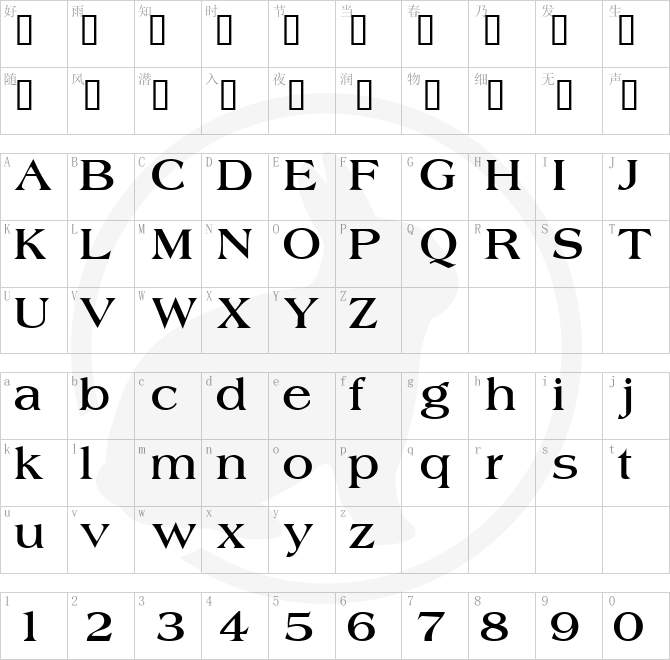
- Font Name:Jade
Jade-Bold.ttf is a very beautiful artistic font, Jade-Bold.ttf is widely used in the design and printing of various books and pictures,Jade-Bold.ttf has a strong visual impact,Jade-Bold.ttf is a commonly used font in newspapers, magazines and books, and is used in posters, e-commerce Poster design, store design, logo design, font design and other fields.Jade-Bold.